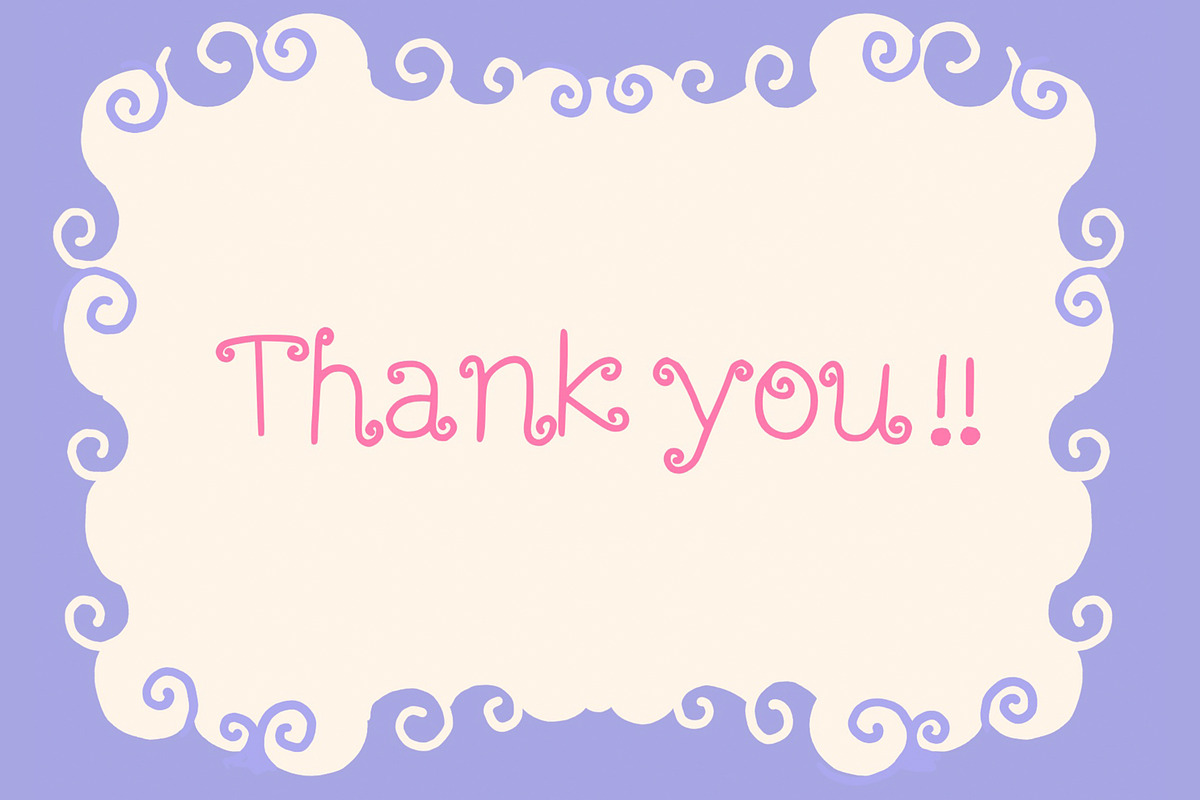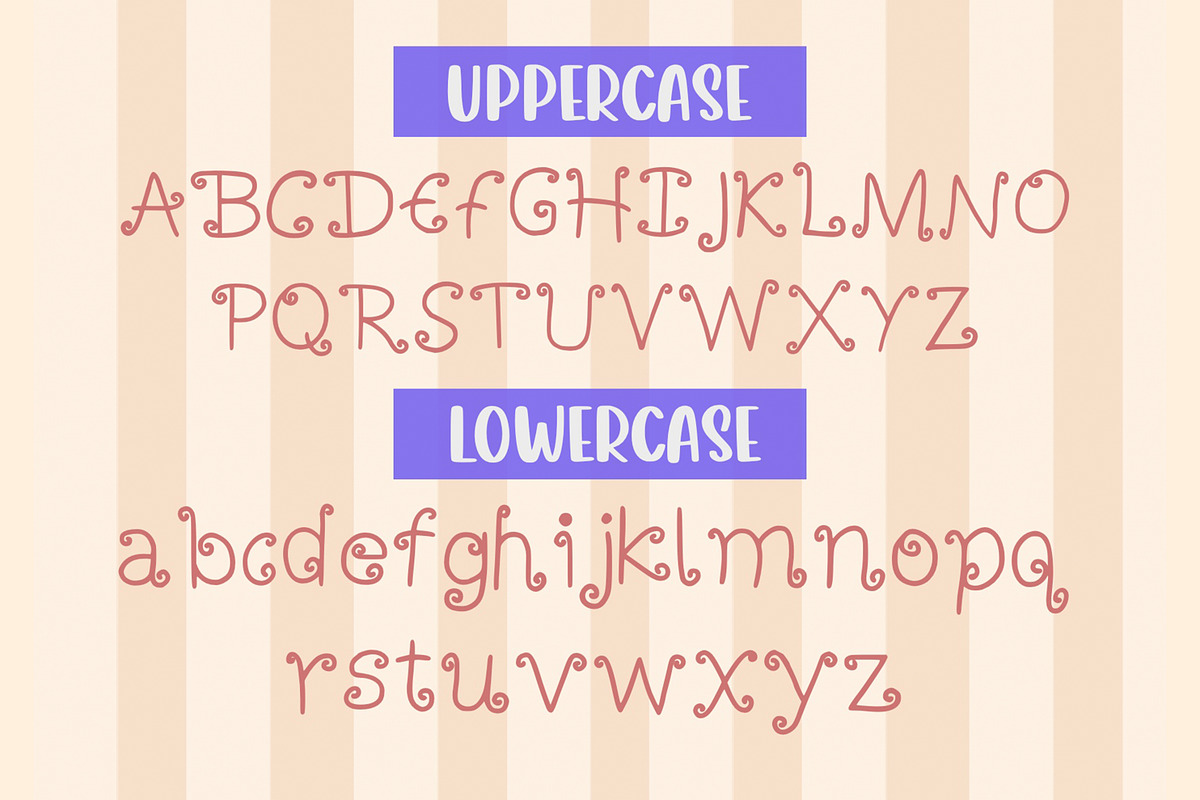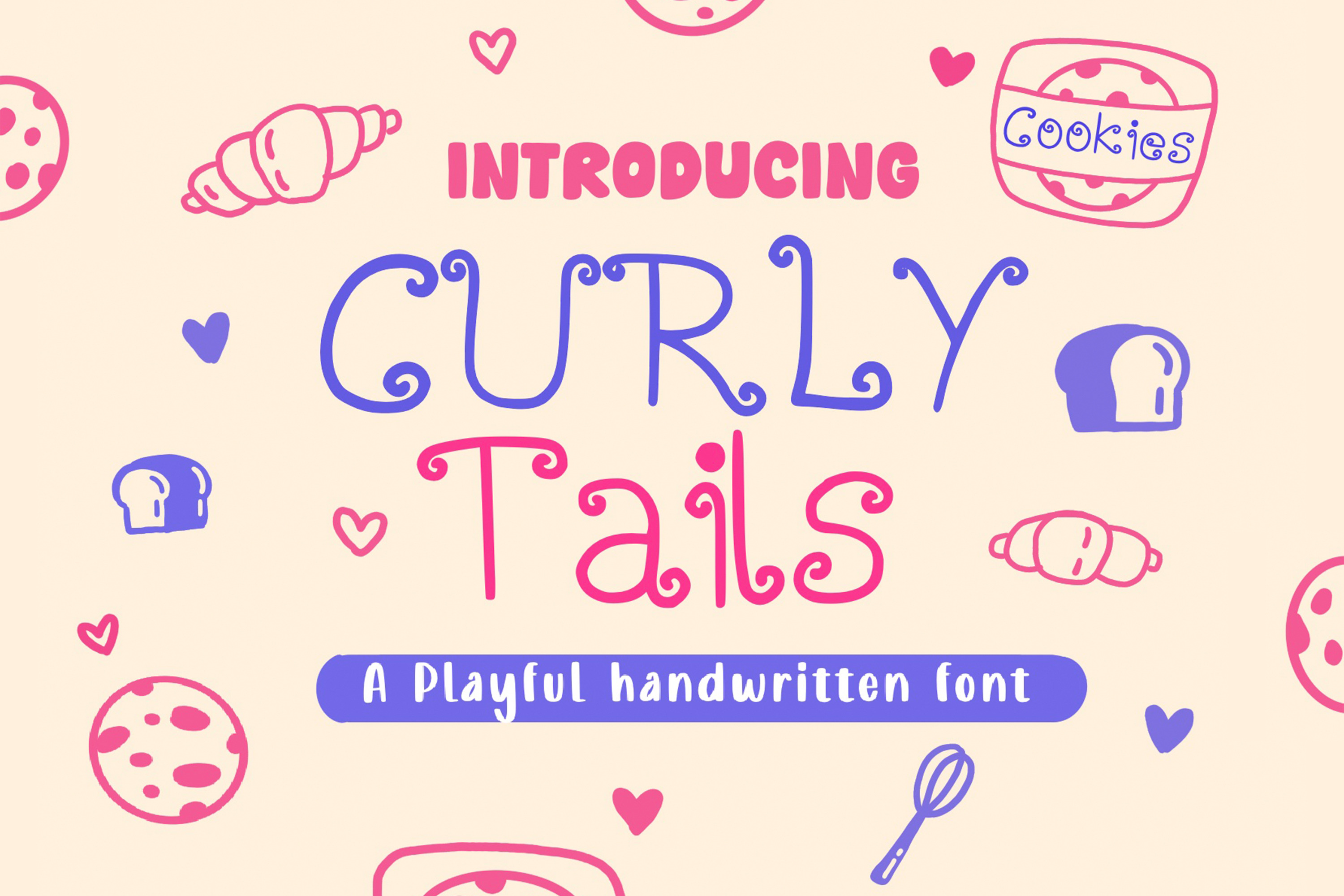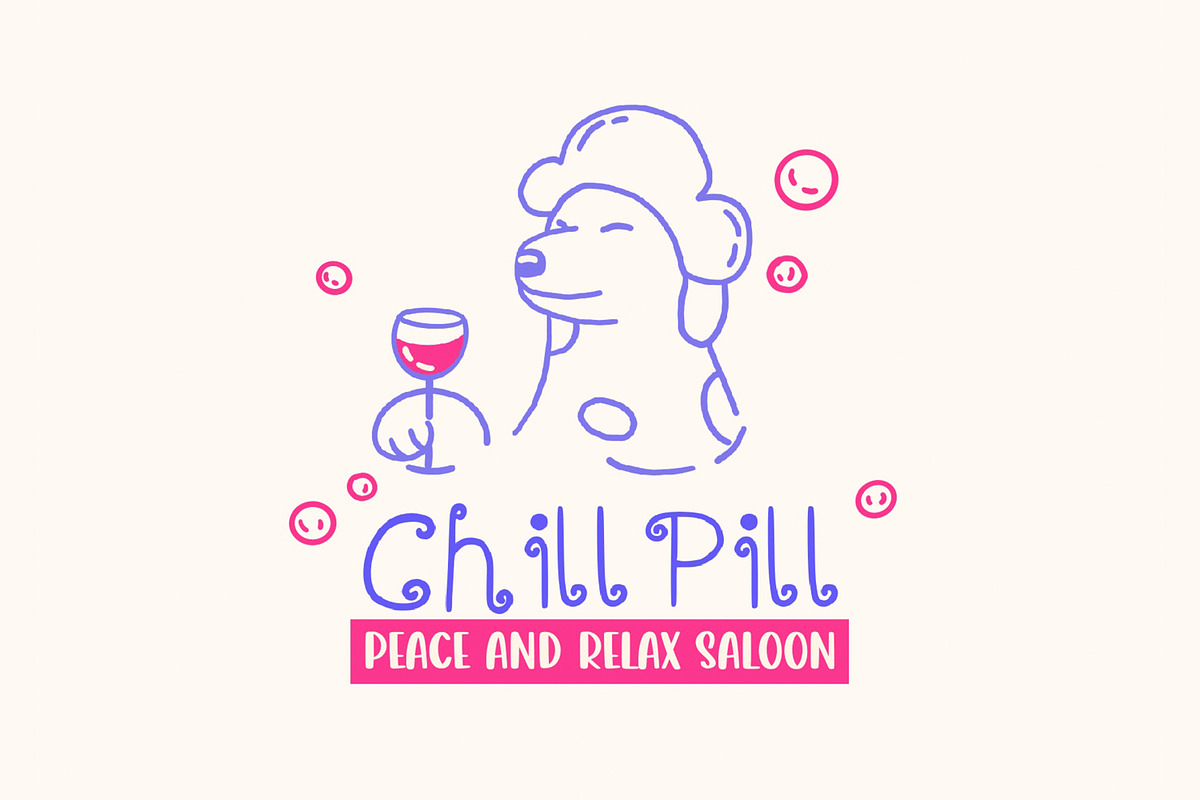
Curly tale|Playful Handwritten Font
Curly tales is a simple typeface perfect for any fun quirky design work! Put this font on anything your heart desires tees, mugs, cards, cases… the fun never stops!